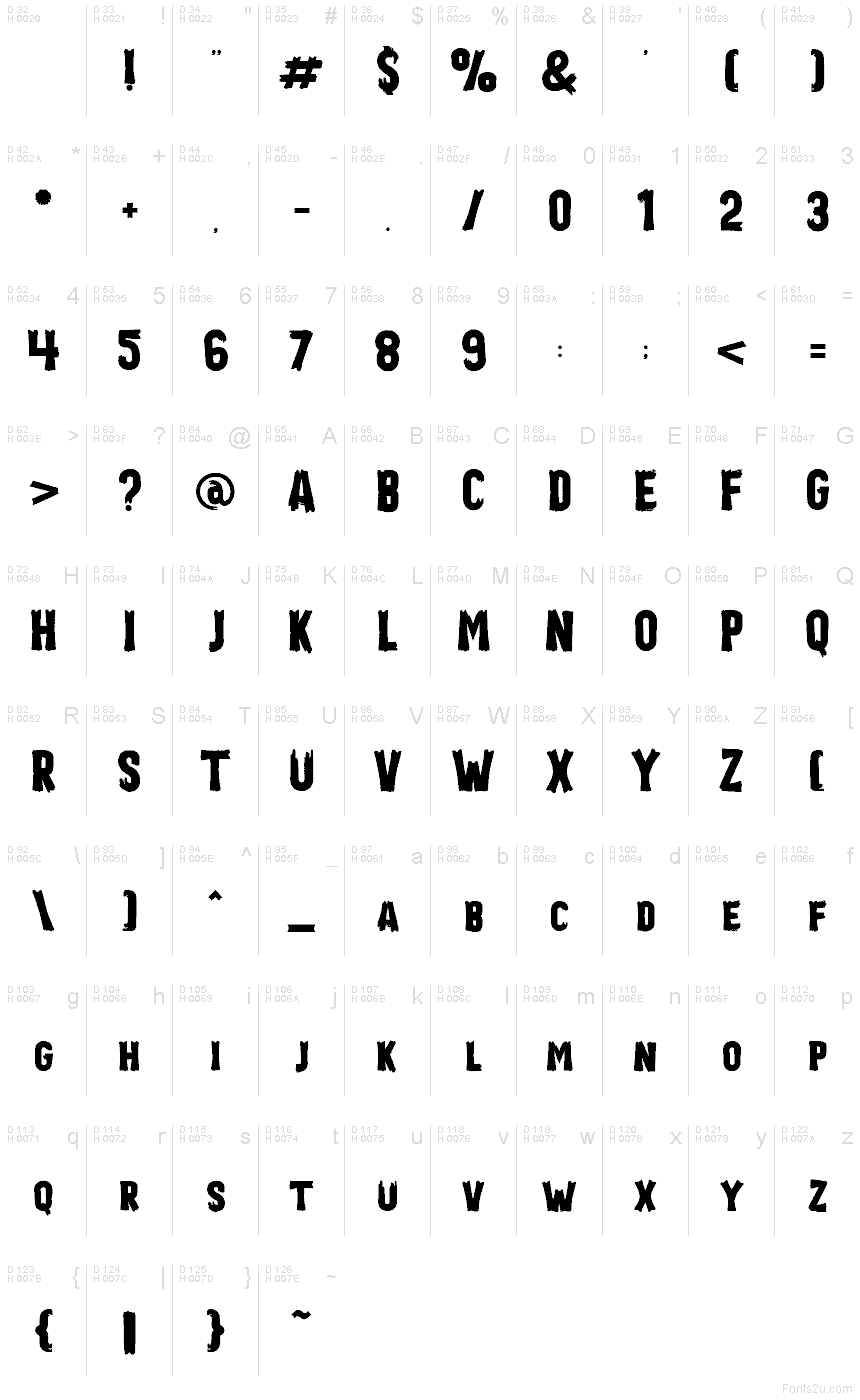
Holiday Harmony Brush
Holiday Harmony Brush font by PutraCetol Studio is a free Christmas brush typeface with the energy of a hand-painted holiday banner. Tall, slightly condensed letters with rough, inky edges feel like they were swiped onto paper with a thick brush, giving every word a cozy, homemade charm. The irregular texture adds just enough grit to cut through glossy seasonal visuals while still feeling warm and festive.
Using Holiday Harmony Brush, your holiday headlines instantly feel bold and handcrafted—great for Christmas cards, gift tags, party invitations, social media promos, mugs, and seasonal packaging. This free font shines on large titles where its brushy texture can breathe; pair it with a clean sans serif for small details and body copy so the artwork stays legible and the lettering remains the star.